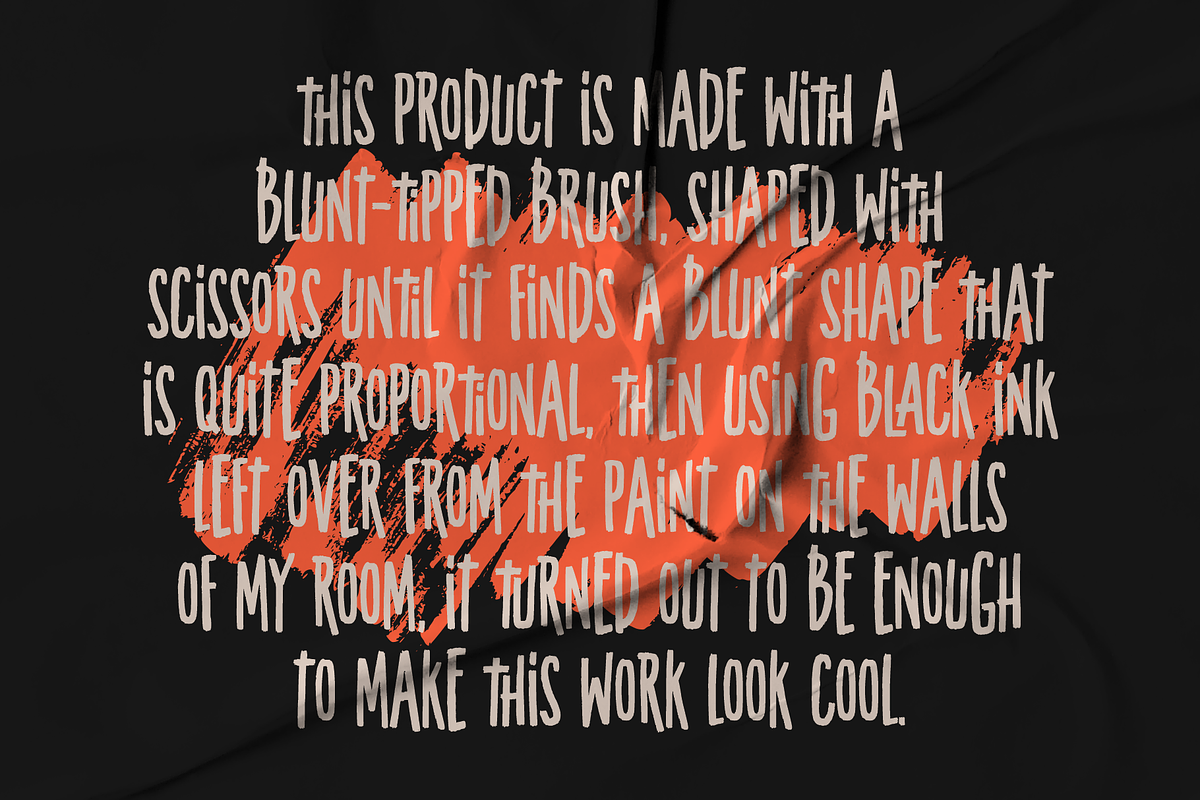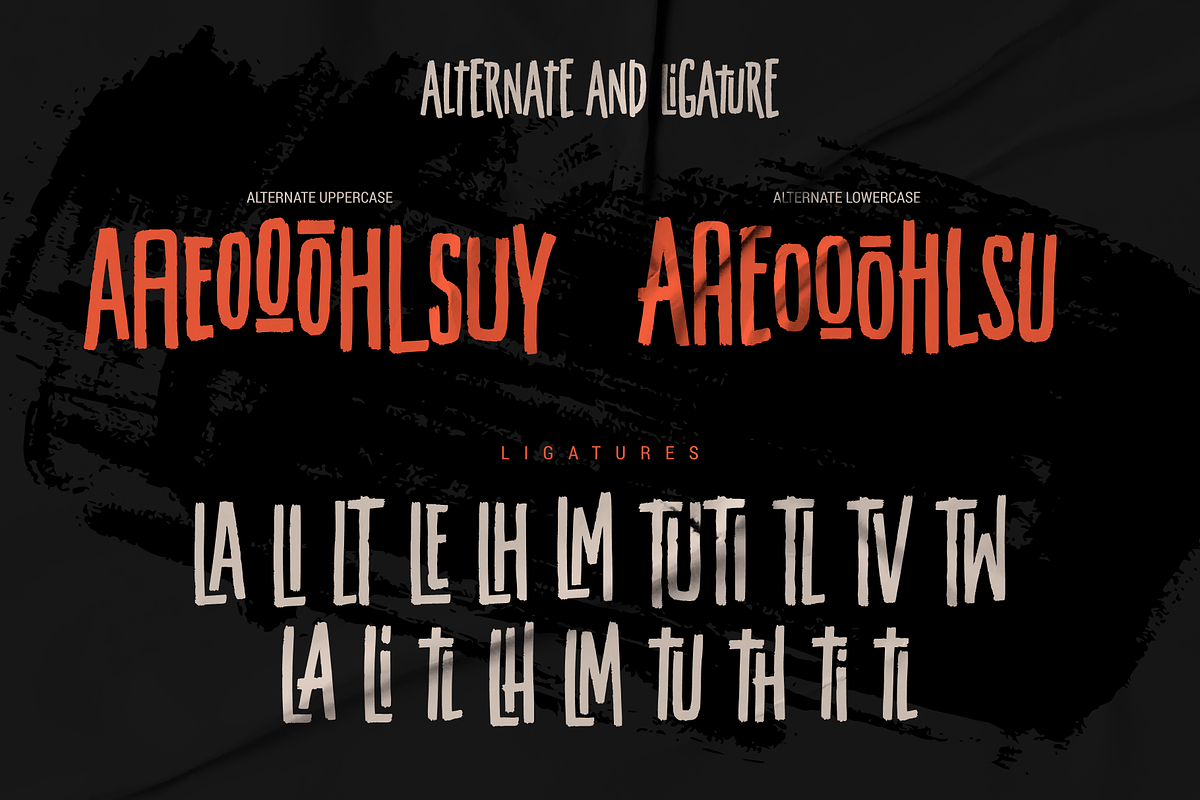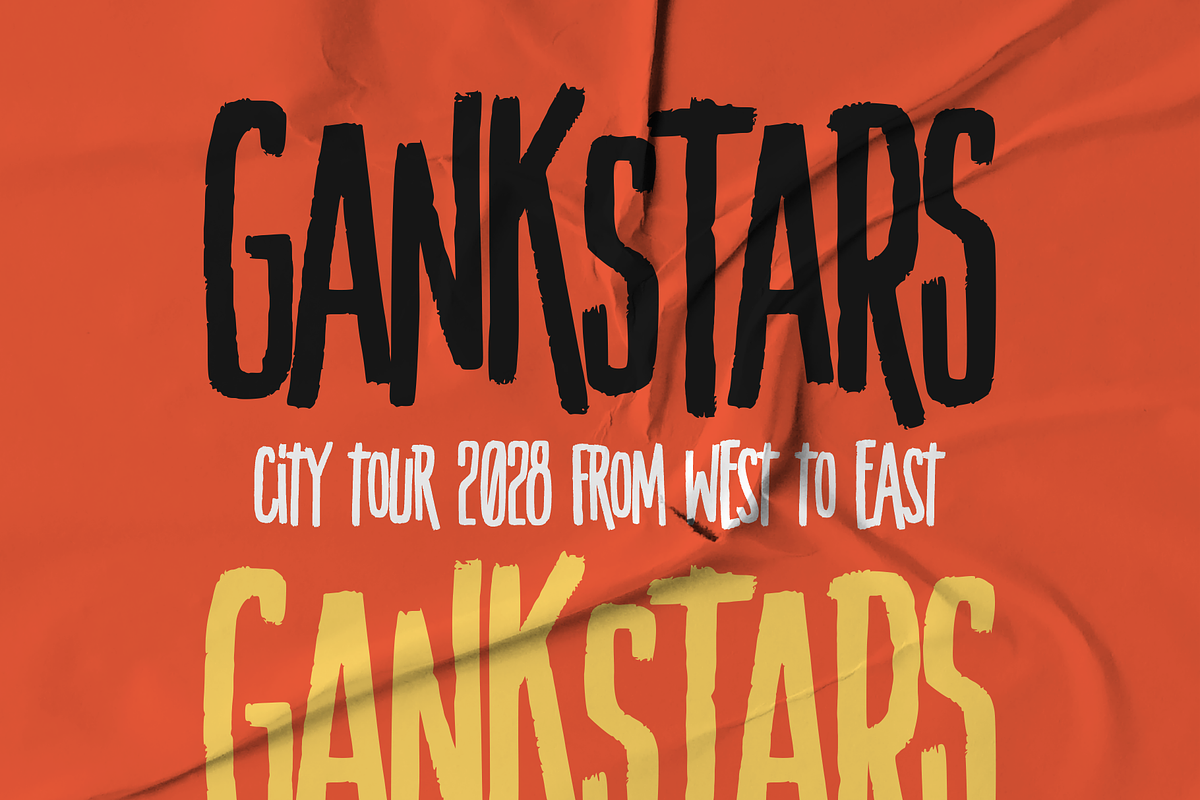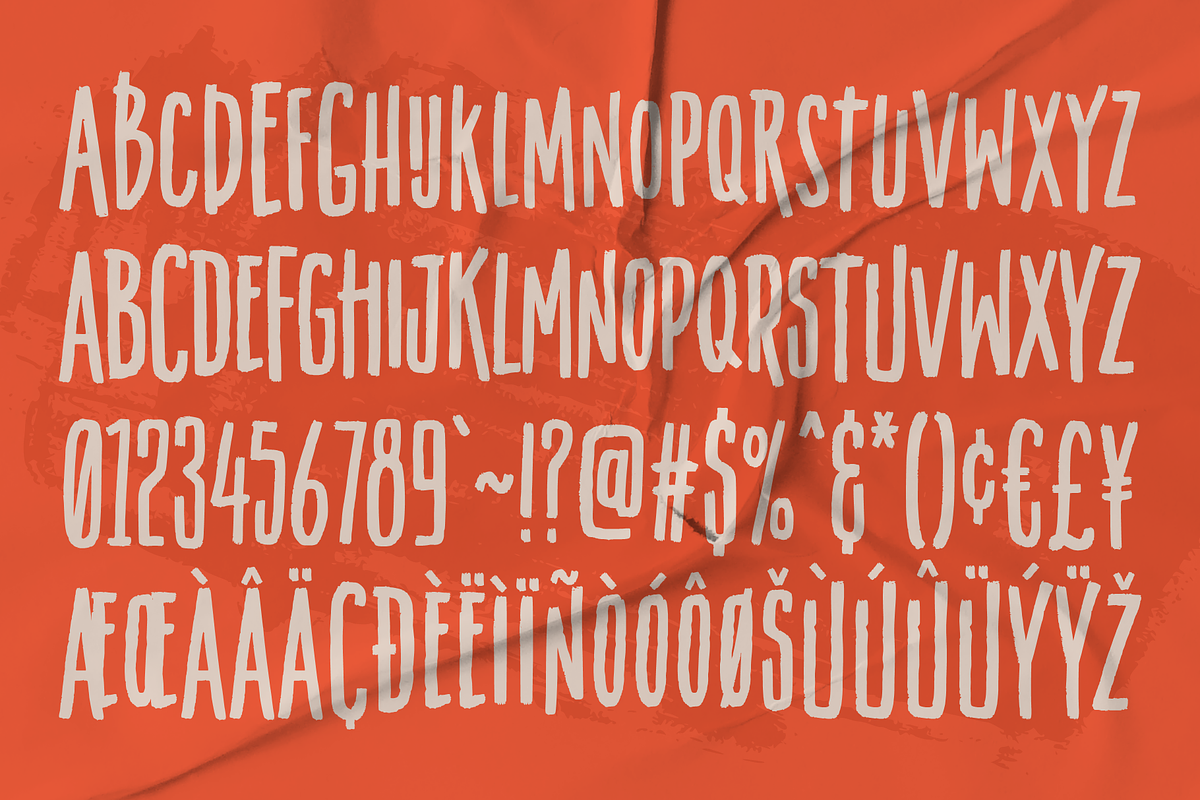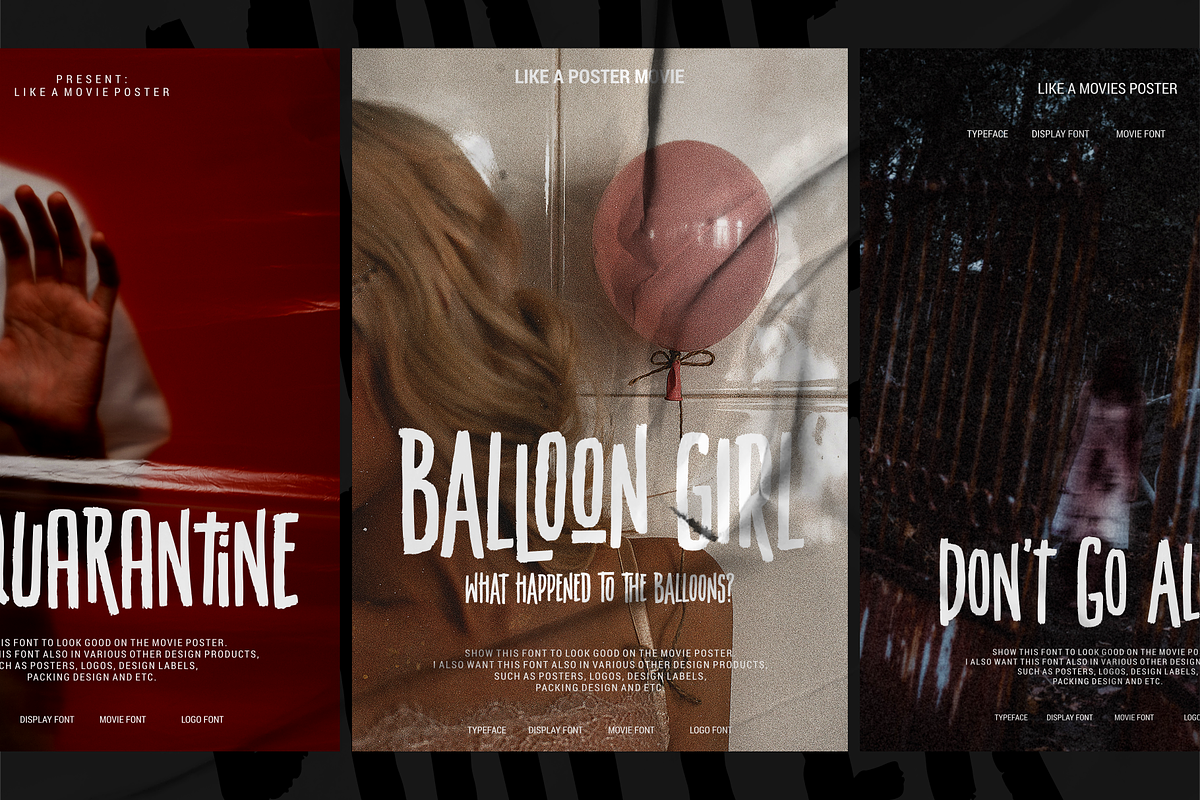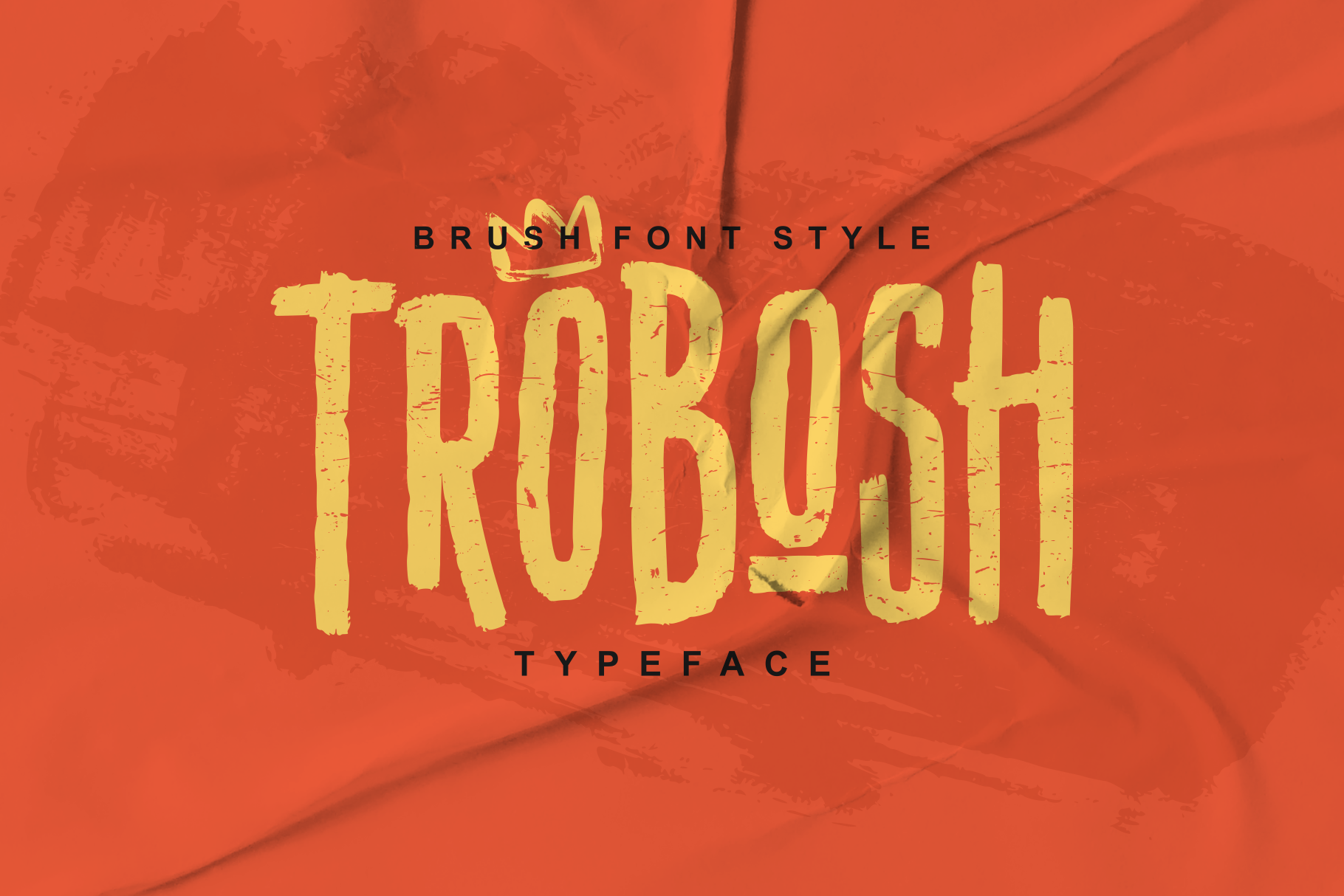
TROBOSH TYPEFACE BRUSH
TROBOSH TYPEFACE The font is created from an experimental process of brushes and paints that are scratched randomly by adopting a sans serif typeface.
- Alternates and Ligatures
- Numeral